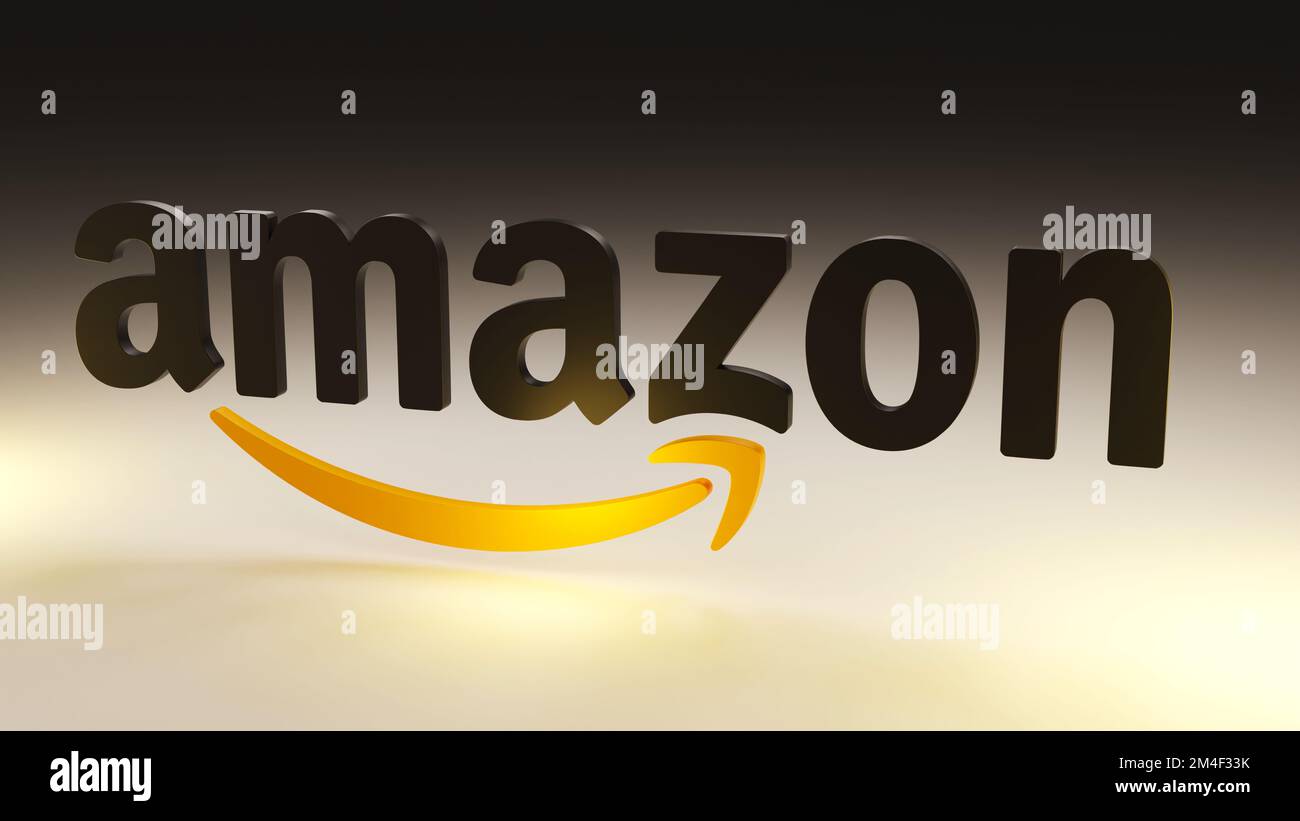
What Is Amazon.com Logo Font . The amazon logo is set in a typeface known as officina sans bold. The font used for the amazon logo is officina sans bold. Here are some reasons why it was chosen: The current amazon logo has been in use since 2000, and it features its logotype with an orange arrow leading from the letter “a” to “z”, which. It’s got those smooth, rounded letters that make you feel like you’re in. The amazon font is called amazon ember. It is a custom sans serif typeface family designed at dalton maag exclusively for. By choosing a simple and plain typeface, the designers were able to. This is the font that appears on the company’s word mark set above the yellow arrow and curves. The current logo consists of the amazon wordmark in a customized version of officina sans bold with a curved arrow.
The current logo consists of the amazon wordmark in a customized version of officina sans bold with a curved arrow. The amazon logo is set in a typeface known as officina sans bold. It is a custom sans serif typeface family designed at dalton maag exclusively for. The font used for the amazon logo is officina sans bold. Here are some reasons why it was chosen: The current amazon logo has been in use since 2000, and it features its logotype with an orange arrow leading from the letter “a” to “z”, which. This is the font that appears on the company’s word mark set above the yellow arrow and curves. It’s got those smooth, rounded letters that make you feel like you’re in. By choosing a simple and plain typeface, the designers were able to. The amazon font is called amazon ember.
What Is Amazon.com Logo Font The amazon font is called amazon ember. The current amazon logo has been in use since 2000, and it features its logotype with an orange arrow leading from the letter “a” to “z”, which. It is a custom sans serif typeface family designed at dalton maag exclusively for. The current logo consists of the amazon wordmark in a customized version of officina sans bold with a curved arrow. The amazon logo is set in a typeface known as officina sans bold. The amazon font is called amazon ember. It’s got those smooth, rounded letters that make you feel like you’re in. Here are some reasons why it was chosen: The font used for the amazon logo is officina sans bold. This is the font that appears on the company’s word mark set above the yellow arrow and curves. By choosing a simple and plain typeface, the designers were able to.
Thinking Of A Logo Redesign? This Is How To Do It. What Is Amazon.com Logo Font The amazon logo is set in a typeface known as officina sans bold. This is the font that appears on the company’s word mark set above the yellow arrow and curves. The current amazon logo has been in use since 2000, and it features its logotype with an orange arrow leading from the letter “a” to “z”, which. By choosing. What Is Amazon.com Logo Font.
What Font Does Amazon Use in 2023? Cherry Picks What Is Amazon.com Logo Font The current logo consists of the amazon wordmark in a customized version of officina sans bold with a curved arrow. The font used for the amazon logo is officina sans bold. By choosing a simple and plain typeface, the designers were able to. It is a custom sans serif typeface family designed at dalton maag exclusively for. The amazon font. What Is Amazon.com Logo Font.
What Font Used For Amazon Logo Unveiling MustSee! What Is Amazon.com Logo Font It’s got those smooth, rounded letters that make you feel like you’re in. The amazon logo is set in a typeface known as officina sans bold. Here are some reasons why it was chosen: The current logo consists of the amazon wordmark in a customized version of officina sans bold with a curved arrow. The current amazon logo has been. What Is Amazon.com Logo Font.
Amazon Logo Png Transparent What Is Amazon.com Logo Font The amazon logo is set in a typeface known as officina sans bold. The current amazon logo has been in use since 2000, and it features its logotype with an orange arrow leading from the letter “a” to “z”, which. This is the font that appears on the company’s word mark set above the yellow arrow and curves. The font. What Is Amazon.com Logo Font.
Amazon Logo Font Free Download » DaFontsPro What Is Amazon.com Logo Font It is a custom sans serif typeface family designed at dalton maag exclusively for. The current logo consists of the amazon wordmark in a customized version of officina sans bold with a curved arrow. The amazon font is called amazon ember. It’s got those smooth, rounded letters that make you feel like you’re in. Here are some reasons why it. What Is Amazon.com Logo Font.
Famous Logos in Papyrus Font — Steve Lovelace What Is Amazon.com Logo Font It is a custom sans serif typeface family designed at dalton maag exclusively for. The amazon logo is set in a typeface known as officina sans bold. By choosing a simple and plain typeface, the designers were able to. This is the font that appears on the company’s word mark set above the yellow arrow and curves. The current logo. What Is Amazon.com Logo Font.
Amazon Logo What Is Amazon.com Logo Font By choosing a simple and plain typeface, the designers were able to. The amazon logo is set in a typeface known as officina sans bold. The amazon font is called amazon ember. The current logo consists of the amazon wordmark in a customized version of officina sans bold with a curved arrow. Here are some reasons why it was chosen:. What Is Amazon.com Logo Font.
Amazon Logo What Is Amazon.com Logo Font The current amazon logo has been in use since 2000, and it features its logotype with an orange arrow leading from the letter “a” to “z”, which. It’s got those smooth, rounded letters that make you feel like you’re in. The amazon font is called amazon ember. By choosing a simple and plain typeface, the designers were able to. The. What Is Amazon.com Logo Font.
Amazon Logo and sign, new logo meaning and history, PNG, SVG What Is Amazon.com Logo Font The font used for the amazon logo is officina sans bold. The current amazon logo has been in use since 2000, and it features its logotype with an orange arrow leading from the letter “a” to “z”, which. It’s got those smooth, rounded letters that make you feel like you’re in. The current logo consists of the amazon wordmark in. What Is Amazon.com Logo Font.